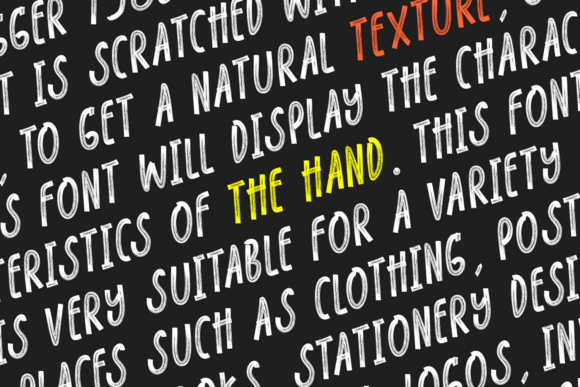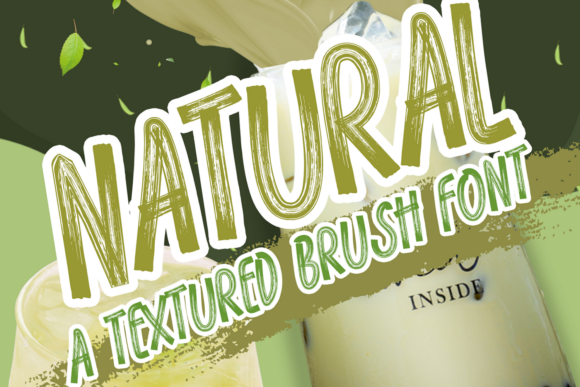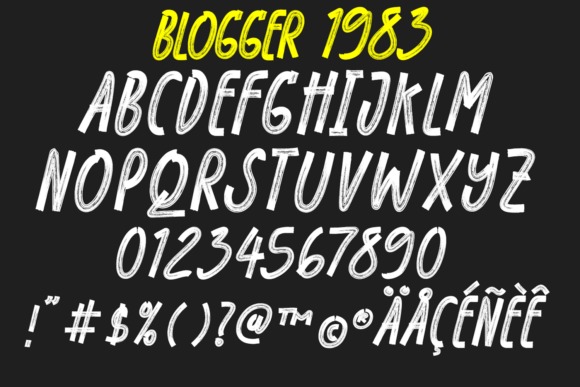
Blogger 1983 Font
About Blogger 1983 Font
Blogger 1983 is a brush font. Its casual charm makes it appear wonderfully down-to-earth, readable and, ultimately, incredibly versatile. Blogger 1983 will look outstanding in any context, whether it’s being used on busy backgrounds or as a standalone headline!